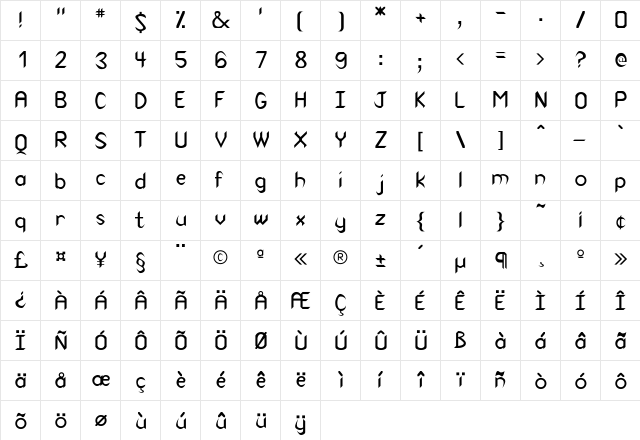
Higley Regular
Design Context for Higley Typeface
Higley offers clean, dependable letterforms without strong stylistic allegiance, making it a practical choice for designers who need flexibility.
Pro Tip: Pair Higley with a font of contrasting weight or personality to build a more expressive typographic hierarchy.